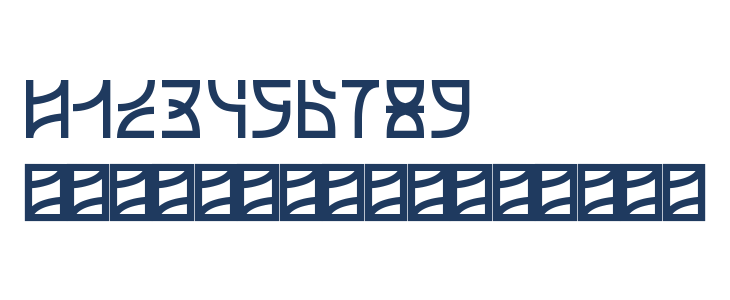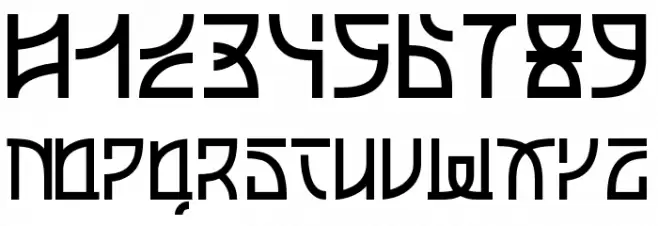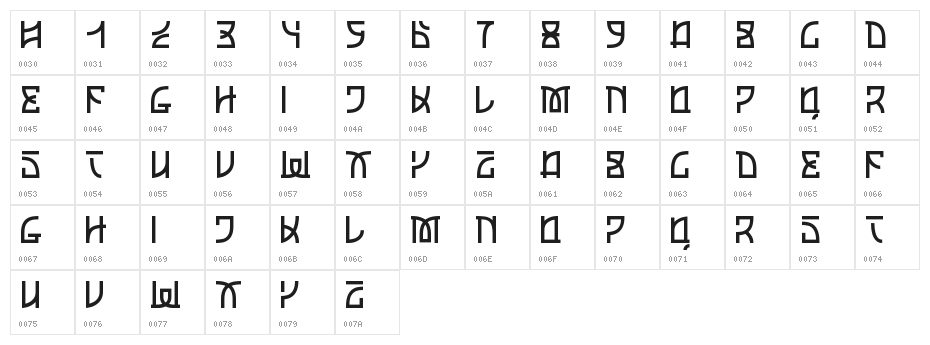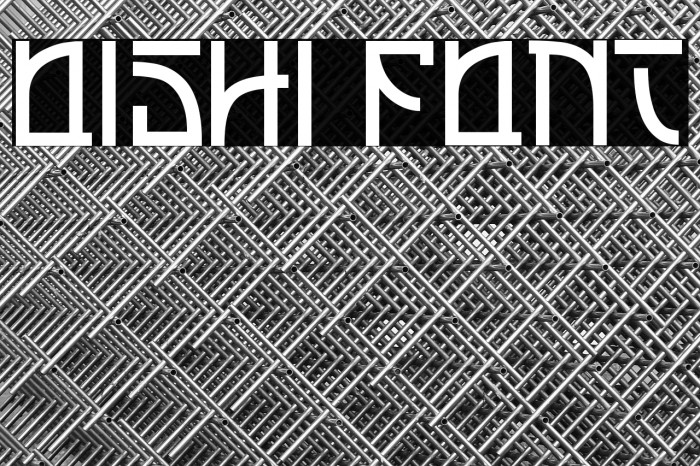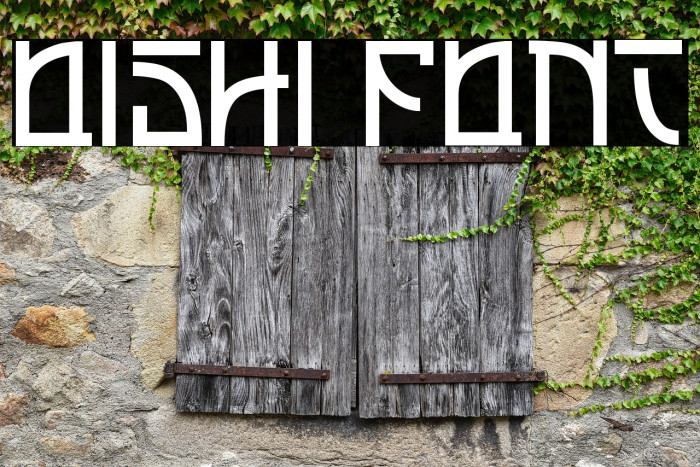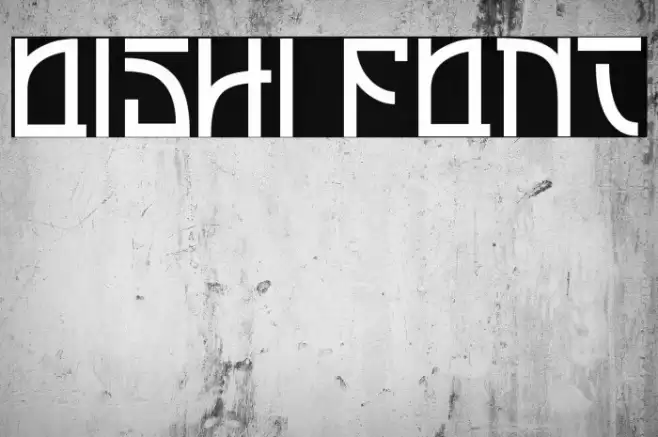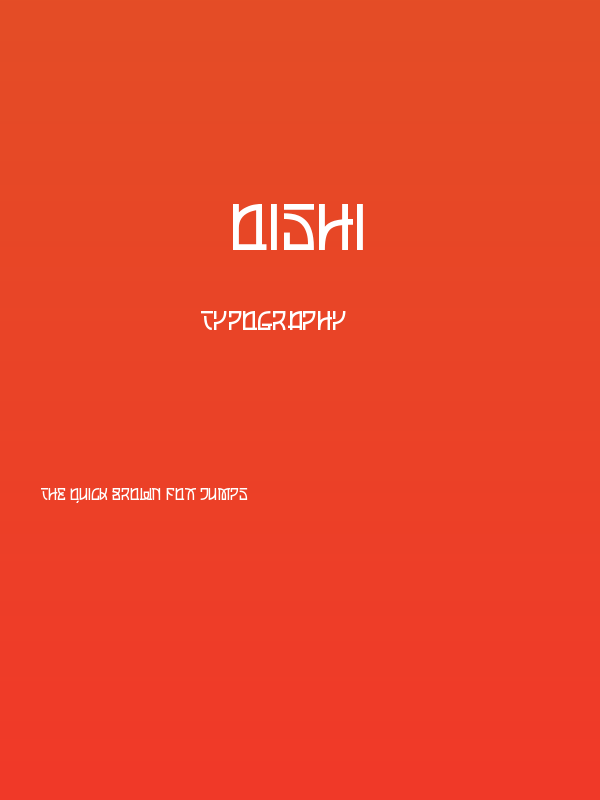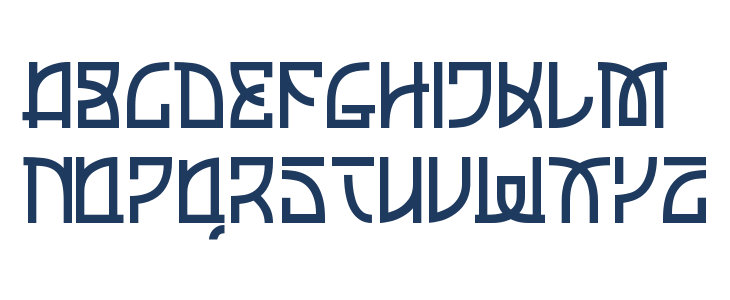
OISHI Font
OISHI Description
This font features a bold and geometric design with a futuristic flair. The characters are constructed with thick, uniform strokes and sharp angles, creating a sense of strength and modernity. The uppercase letters exhibit a unique blend of straight lines and curves, while the lowercase letters maintain a consistent style that complements the uppercase. Numbers are designed to match the overall aesthetic, with a bold presence and clear readability. Special characters are included, maintaining the same design principles. This font's distinct style makes it ideal for projects that require a modern and impactful visual presence.
OISHI UPPERCASE
OISHI LOWERCASE
OISHI OTHER CHARS